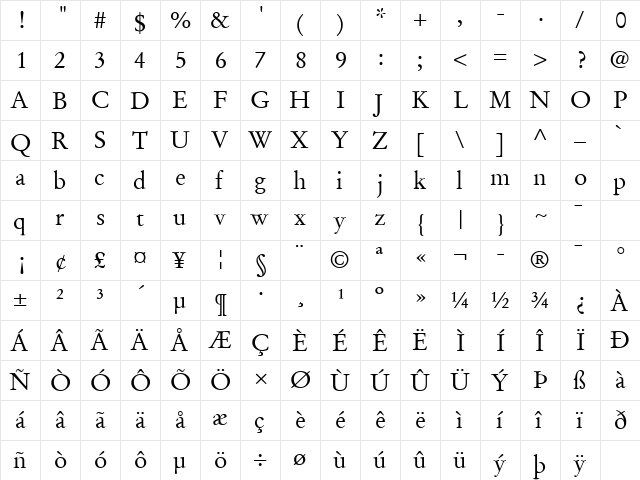
GaraWen Regular
Design Context for GaraWen Typeface
GaraWen is a composed and adaptable typeface that performs quietly and consistently across a wide range of design contexts.